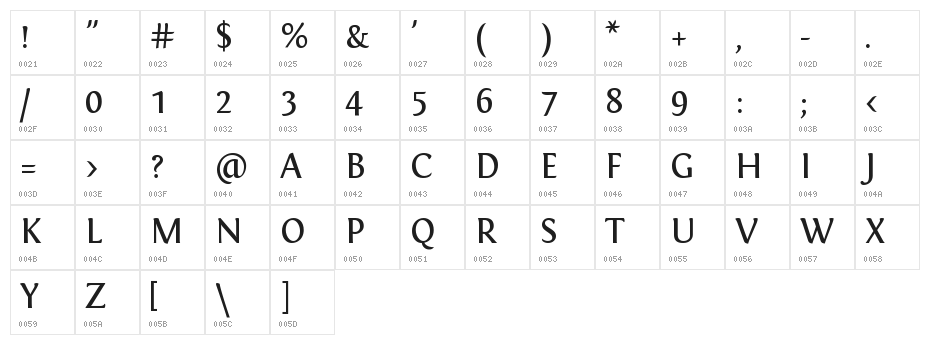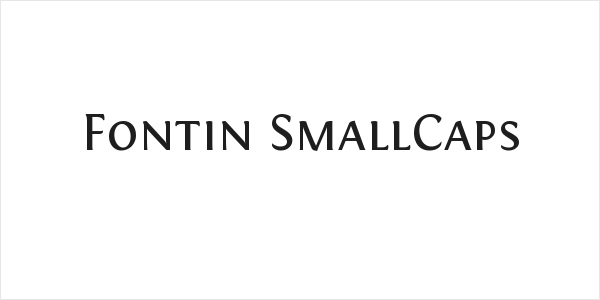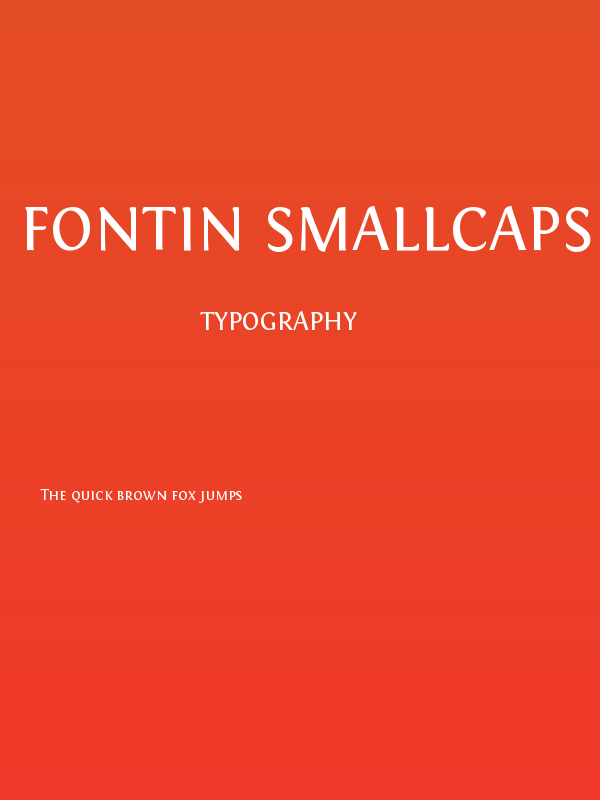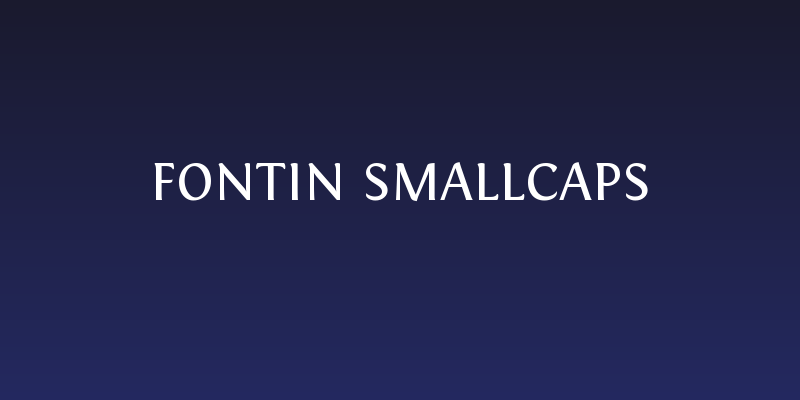
Fontin SmallCaps Font
Fontin SmallCaps Description
This font exhibits a classic serif style with a modern twist, characterized by its small caps feature. The uppercase letters are bold and prominent, while the lowercase letters are designed in a small caps format, maintaining uniformity in height. The numerals are clear and well-defined, ensuring readability. Special characters are crafted with precision, adding to the font's versatility. The overall design is elegant, making it suitable for formal and professional use. The strokes are moderately thick, providing a balanced contrast that enhances legibility without overwhelming the eye.
| Proposed Projects | Ideal for formal documents, book titles, branding materials, and editorial design. |